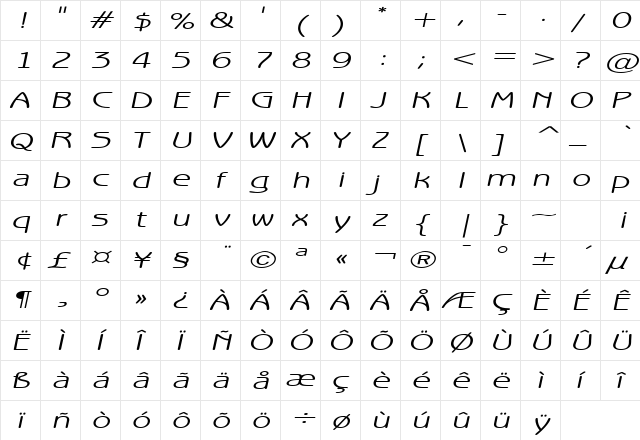
Beagle Extended Italic Font Preview
Beagle Extended Italic
Design Context for Beagle Extended Typeface
Beagle Extended is a composed and adaptable typeface that performs quietly and consistently across a wide range of design contexts. Its italic angle brings a sense of urgency and motion to the letterforms.
Pro Tip: Try Beagle Extended for annotation and caption copy alongside an upright companion — the contrast in angle creates a dynamic but ordered typographic system.